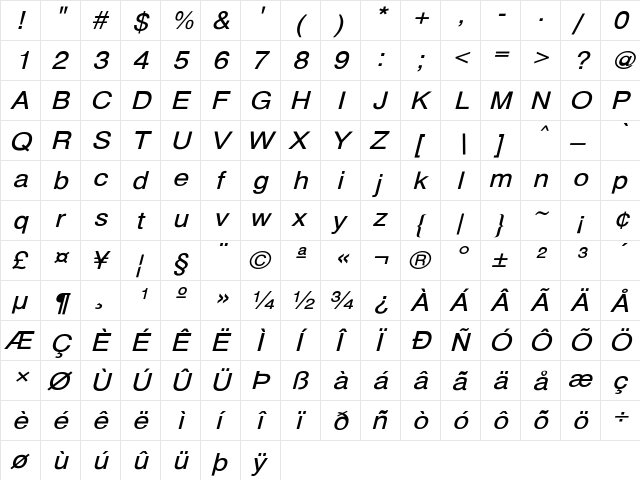
HelveticaExtObl-Normal Regular
Design Context for HelveticaExtObl-Normal Typeface
HelveticaExtObl-Normal is a composed and adaptable typeface that performs quietly and consistently across a wide range of design contexts.